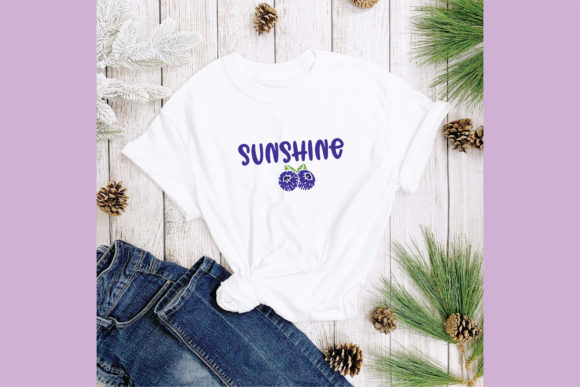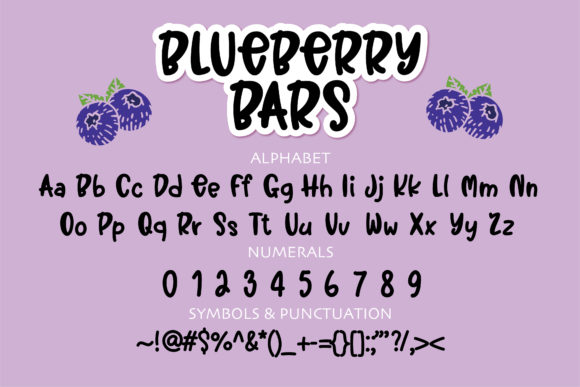
Blueberry Bars Font
db-ku.com - Script & Handwritten -- Blueberry Bars is a cute and flexible handwritten font. Its natural and unique style makes it incredibly fitting to a large pool of designs. It looks stunning on wedding invitations, thank you cards, quotes, greeting cards, logos, business cards, and every other design which needs a customized touch.